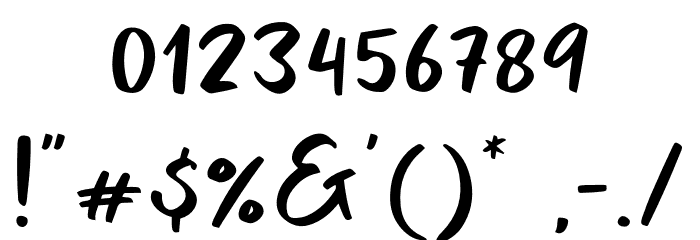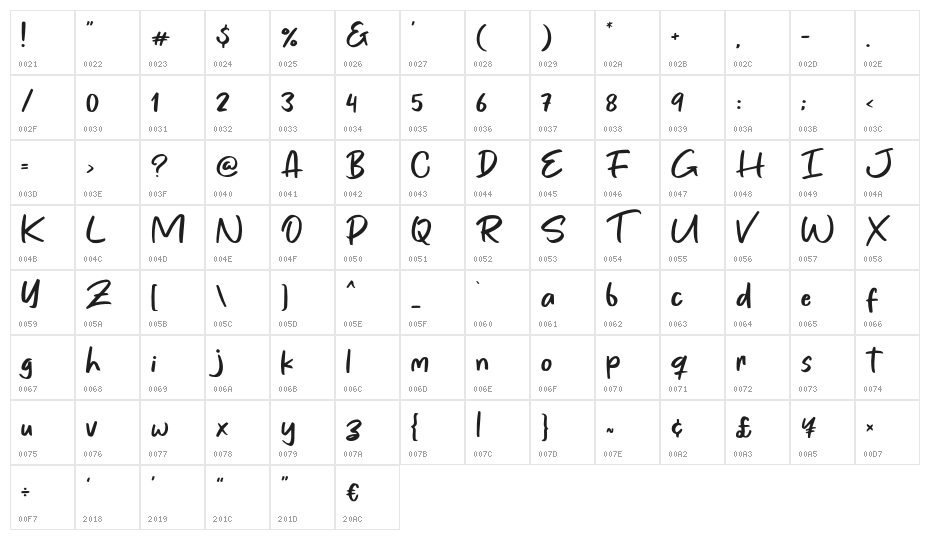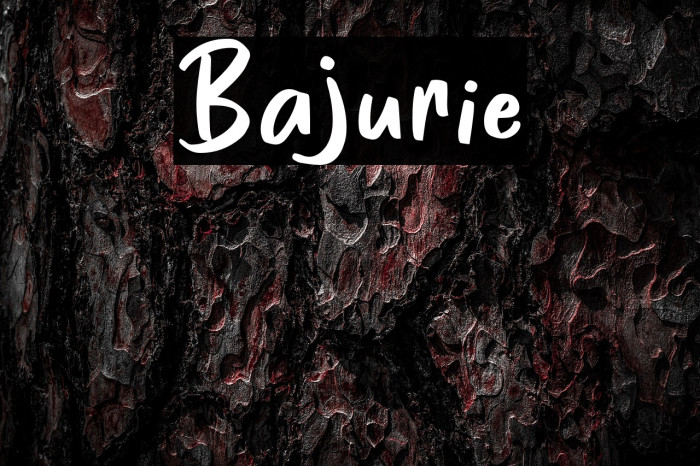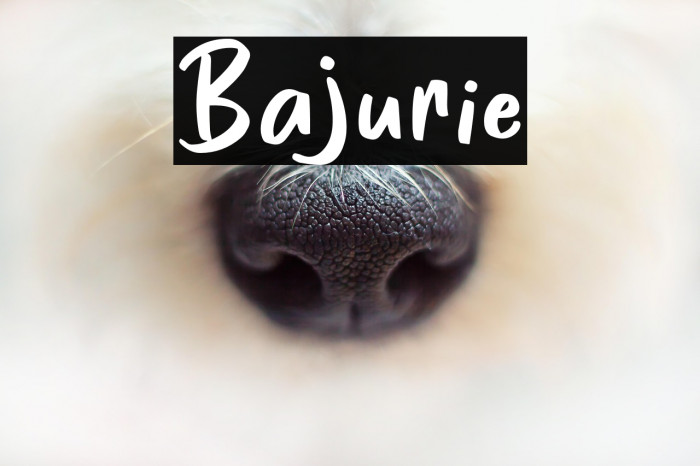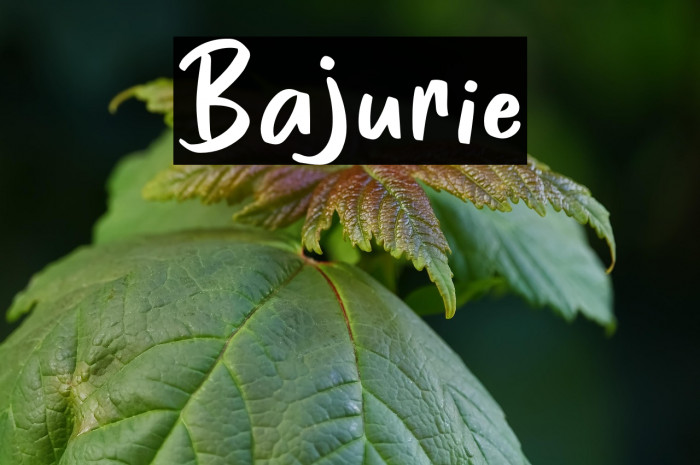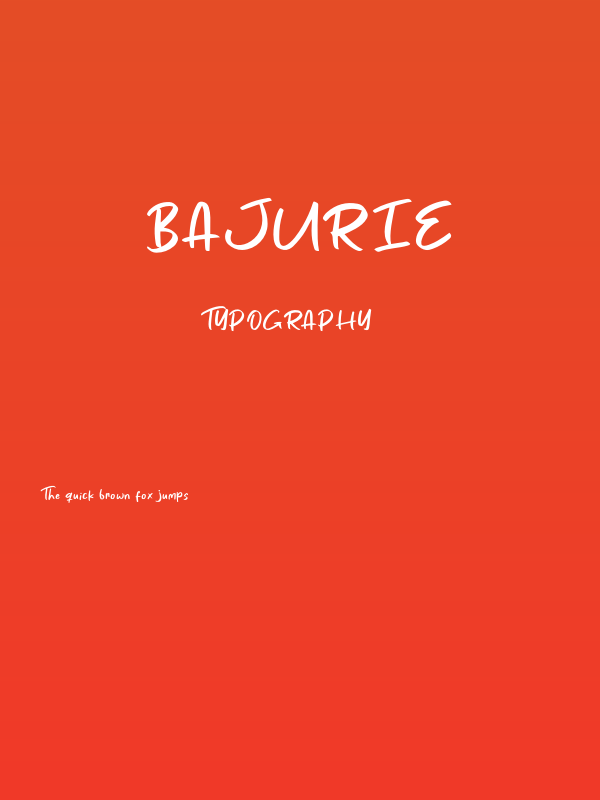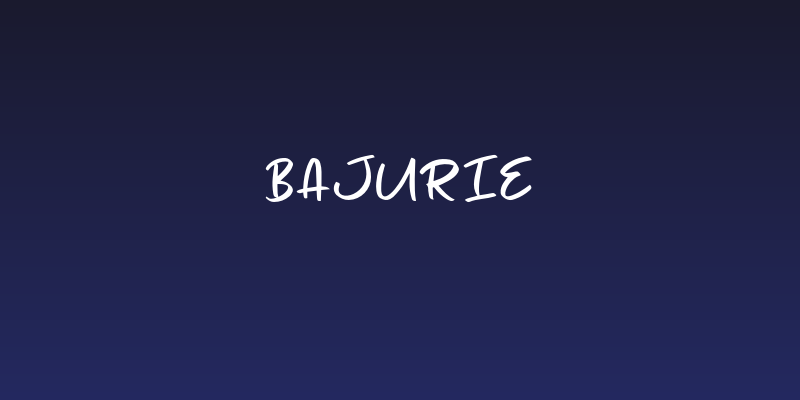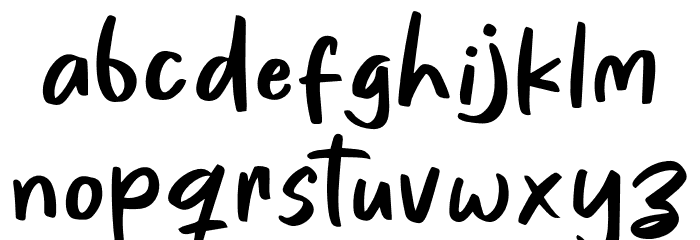
Bajurie Font
Bajurie Description
This font features a playful and casual handwritten style, characterized by its fluid and dynamic strokes. The letters have a natural, organic flow, with slight variations in thickness that add to its informal charm. The uppercase letters are bold and slightly slanted, while the lowercase letters maintain a consistent, rounded appearance. The numerals and special characters follow the same lively aesthetic, making the font versatile for various creative applications. Its overall appearance is approachable and friendly, making it suitable for projects that require a personal touch.
| Proposed Projects | Ideal for greeting cards, invitations, personal branding, and social media graphics. |